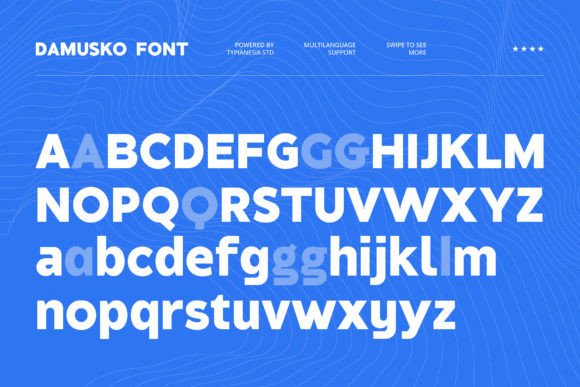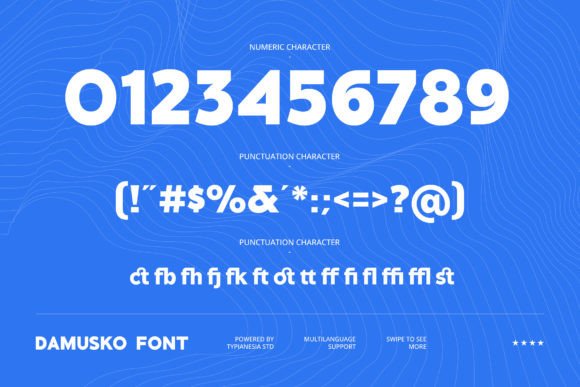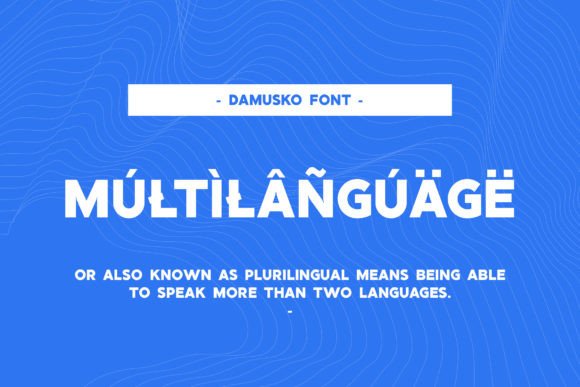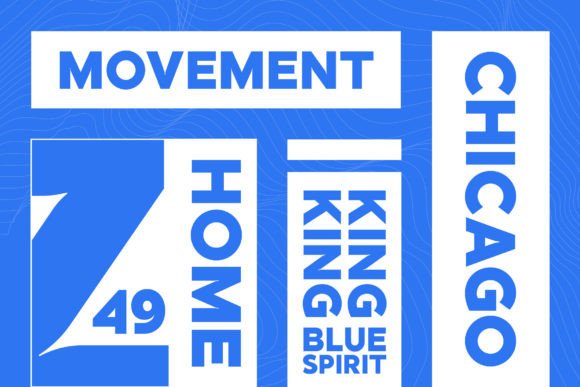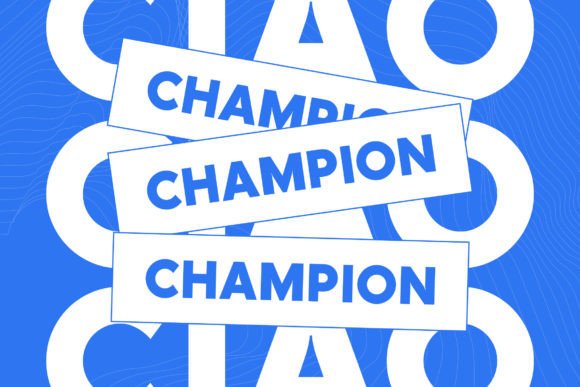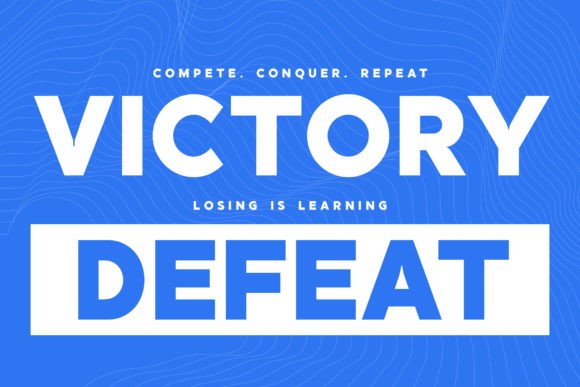
The Perfect Blend of Bold and Modernity: Introducing Damusko Font
Imagine you’re brainstorming ideas for a new brand, and suddenly, the perfect typography pops into your mind. The clean lines, the refined structure, the bold statement – it’s the perfect combination to make your brand stand out. This is exactly what Damusko Font brings to the table, offering a unique blend of modernity and sophistication that’s sure to captivate your audience.
As a designer, you’re always on the lookout for the perfect font to elevate your projects. Damusko Font is an excellent choice for branding, corporate identities, and editorial design, providing a stylish and strong look that’s sure to make a lasting impression. Whether you’re creating a website, product packaging, or advertising materials, Damusko Font is the perfect companion to ensure your message stands out with bold typography.
- Unique Characteristics: Damusko Font features a distinctive, modern sans-serif design with a bold and geometric feel, making it ideal for use in digital and print media.
- Weight and Style Options: Damusko Font offers a range of weight and style options, including light, regular, bold, and italic, allowing users to customize the font to suit their specific needs.
Review of Damusko Font
Overall, I found Damusko Font to be an interesting addition to my design toolkit. Here’s a breakdown of what I liked and didn’t like.
- Unique Style: Damusko Font brings a distinctive aesthetic to my designs, setting them apart from more generic fonts.
- Legibility: Despite its unconventional look, Damusko Font is surprisingly easy to read, even at smaller font sizes.
- Flexibility: I was able to use Damusko Font in a variety of contexts, from headlines to body text, without any issues.
- Limited Character Set: Damusko Font’s character set is somewhat limited, which may cause issues when working with non-ASCII characters.
- Not Ideal for Body Text: While Damusko Font works well in headlines, it’s not the best choice for large blocks of body text, where readability is crucial.
- Platform-Specific Issues: I encountered some platform-specific rendering issues, particularly on older devices.
Overall, Damusko Font is a great addition to any designer’s toolkit, but it’s essential to understand its limitations and use it judiciously. With its unique style and flexibility, it’s perfect for adding a touch of personality to your designs, but it may not be the best choice for every project.
Use the Damusko font for headings and titles to add a touch of elegance and sophistication to your designs.
Experiment with different font sizes and styles to create visual hierarchy and emphasis in your designs.
Combine the Damusko font with other fonts to create a unique and eye-catching design.
Business cards and branding materials
Editorial and publishing designs